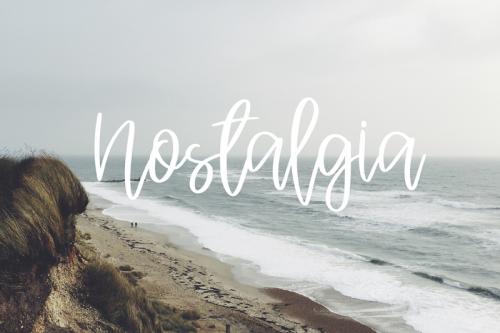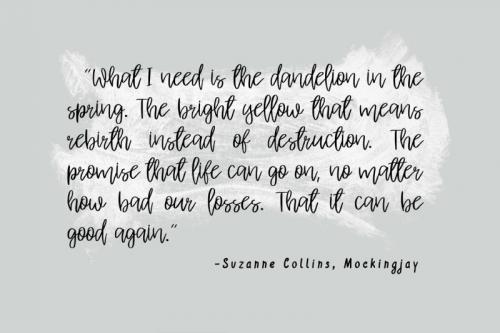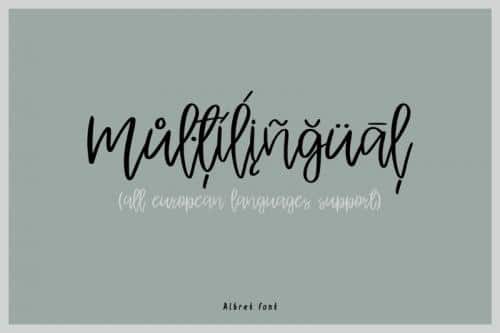
Introducing my new font Albret with its pleasant and elegant style. If you want to add a certain charm, appeal and allure in your projects, Albret is just what you need. Albret comes with uppercase, lowercase, standard punctuation and special letters for most of the European languages.